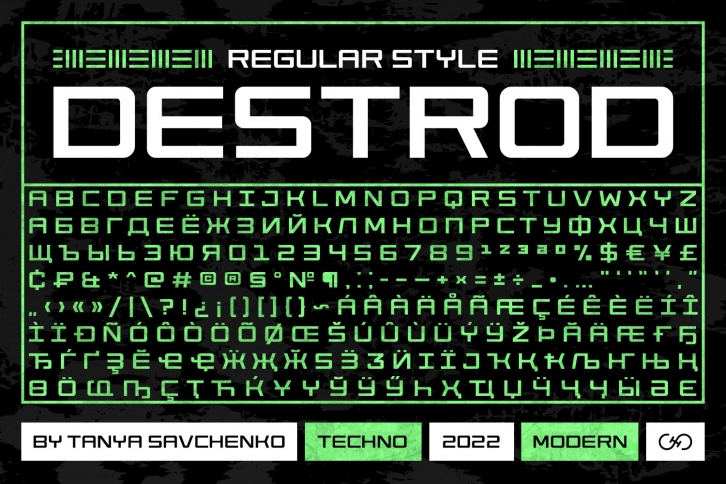
Destrod Regular is a trendy and unique font with an authentic style. It was designed by Tanya Savchenko and it's a great choice for creative people who need such a font. It was released on October 5, 2022 and the file size is 3.8 MB. Destrod Regular will add an organic vibe to any design idea!